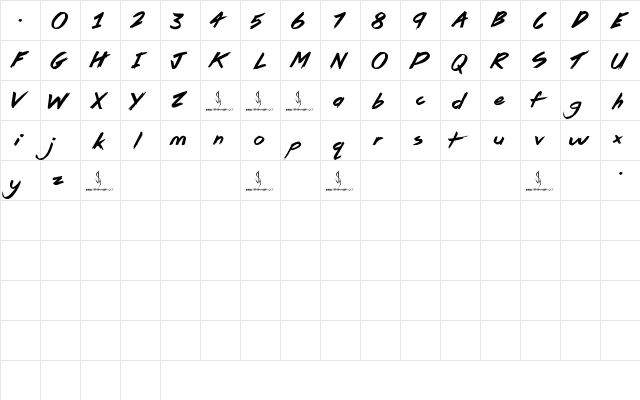
Pirate Scripts Regular
Design Context for Pirate Scripts Typeface
Pirate Scripts brings a calligraphic fluidity to the page — its connecting strokes and expressive curves give it an unmistakably human quality.
Font Pairing: Combine Pirate Scripts with a simple geometric sans for maximum contrast — the tension between flowing curves and clean structure is a classic typographic pairing.
Pro Tip: Pair Pirate Scripts with a clean sans-serif for supporting text. The contrast between fluid script and geometric structure creates an elegant typographic hierarchy.